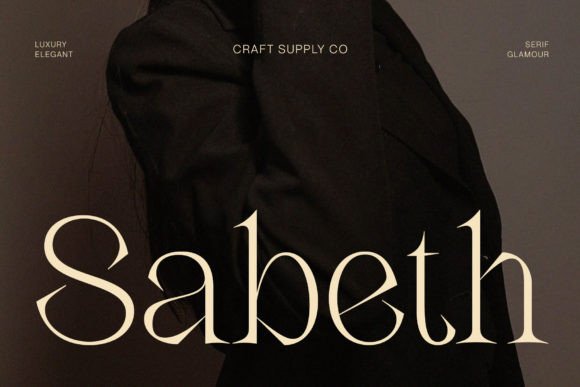
Introducing Sabeth Font – A Timeless Typeface That Embodies Elegance and Opulence
Sabeth Font, a seriffed typeface with a timeless, aristocratic charm, captures the essence of refined luxury. Its contours exude an aura of opulence and elegance, making it the perfect font for occasions that demand a touch of sophistication.
Whether you're crafting exquisite greeting cards, designing captivating packaging, or establishing a distinctive brand identity, Sabeth Font is the perfect choice to make your designs stand out from the ordinary. This versatile font adds a touch of timeless allure to posters and other design projects, leaving an unforgettable impression on all who encounter it.
Unleash your creativity with Sabeth Font and explore a world of design possibilities. Let your imagination soar as you create designs that are not just visually appealing but also imbued with an air of refined elegance.